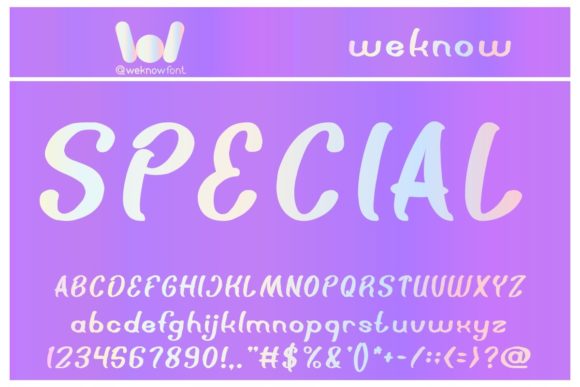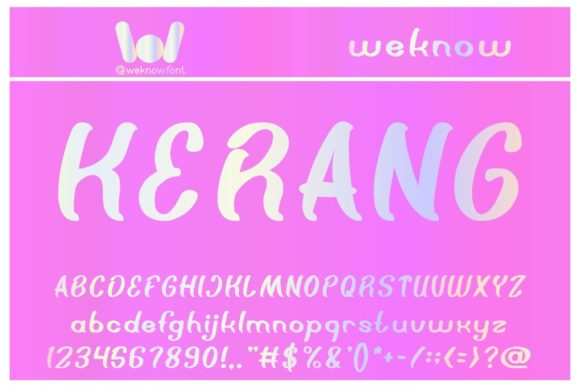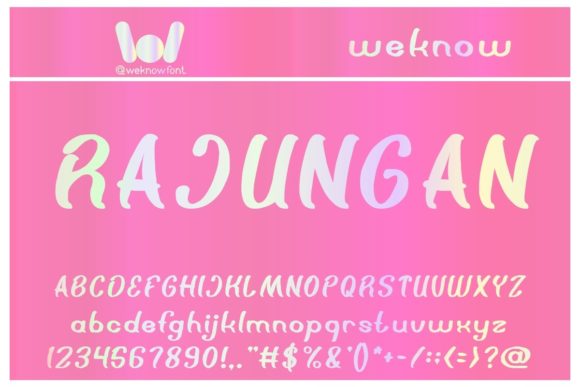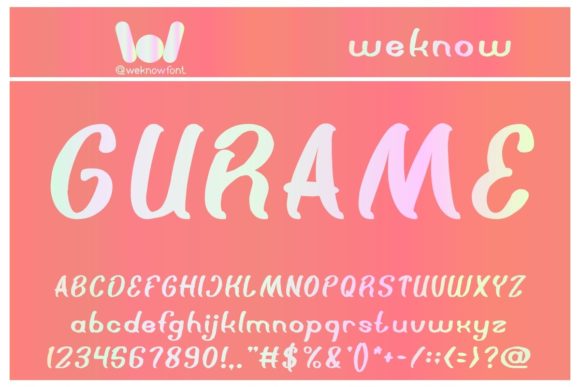
Something Font
About Something Font
“Something” emerges as a delicate and elegant handwritten font, its graceful lines flowing like strokes of artistic mastery. With its meticulously crafted characters, this font possesses a balanced beauty that harmonizes effortlessly with a diverse range of design concepts. Imagine it as a versatile tool that breathes life into your creations, transforming them into visual masterpieces that resonate with sophistication.
Picture “Something” as a brush that dances gracefully across the canvas, leaving behind letters that exude an aura of refinement and artistic flair. Its well-balanced characters enhance your projects, elevating them into visual wonders that radiate elegance and creativity. As you incorporate this font into your designs, you embark on a journey where your concepts evolve into captivating visual narratives.
Beyond its visual allure, “Something” captures an essence of authenticity and creative expression. Its handwritten charm adds a personal touch, turning your designs into more than mere visuals – they become expressions of artistry and timeless elegance.
As you infuse “Something” into your most creative ideas, watch how it becomes the catalyst that breathes life into your concepts. Whether gracing wedding invitations, logos, branding, or other designs, this font resonates with an innate ability to enhance and uplift. It adapts seamlessly to different styles, becoming a pivotal element that adds depth and allure.
In a design landscape where aesthetics communicate emotion and grace, “Something” becomes your tool for crafting designs that evoke admiration and leave a lasting impression. Let its delicate and flowing strokes be the artistic brushstrokes that enhance your creations, infusing them with an exquisite touch that resonates deeply. Embrace the allure of “Something” and bear witness as it transforms your projects into captivating showcases of artistic brilliance, inviting all who engage with them to witness the magic unfold.